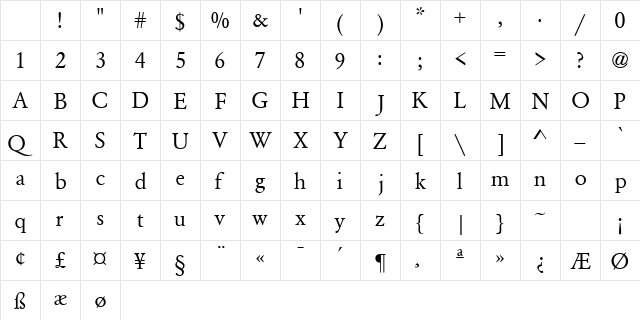
Complete Garamond Semi Expanded SSi Semi Expanded glyph index. Displaying only characters natively supported by Garamond Semi Expanded SSi Semi Expanded font.
Garamond Semi Expanded SSi is a composed and adaptable typeface that performs quietly and consistently across a wide range of design contexts.